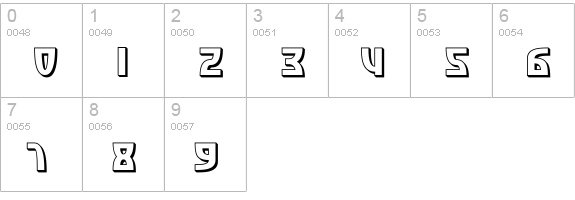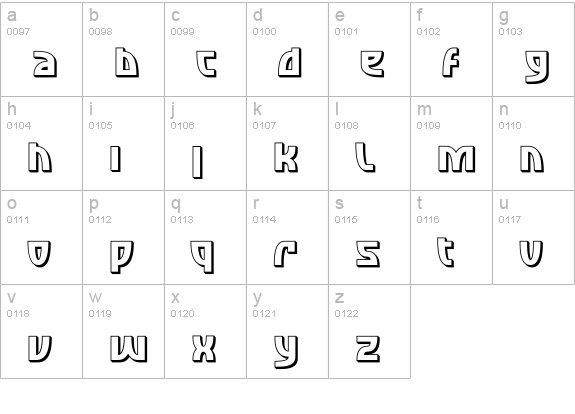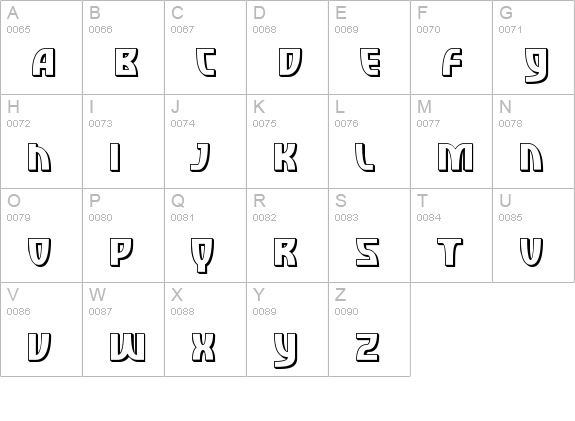
SF Retroesque Shaded Font Details
SF Retroesque Shaded font is a stunning typeface that effortlessly combines the charm of retro aesthetics with a modern twist. With its bold and distinctive letterforms, this font is perfect for adding a touch of nostalgia and character to any design project. The retroesque design of this font brings to mind the golden age of vintage signage and magazine covers, evoking a sense of nostalgia that is both captivating and timeless. Its shaded style adds depth and dimension to each letter, creating an eye-catching and dynamic visual impact. Whether you're working on a poster, logo, album cover, or any other creative endeavor, SF Retroesque Shaded font will surely make a statement. Its versatility allows it to be used in various contexts, from playful and whimsical designs to sophisticated and elegant compositions. The best part? SF Retroesque Shaded font is available for free! You can easily download it from FontsMarket.com, a trusted source for high-quality fonts. By offering this font for free, the creators have made it accessible to all designers, regardless of their budget. So, don't miss out on the opportunity to add SF Retroesque Shaded font to your font library. With its retro charm, modern twist, and the convenience of being freely available, this font is a must-have for any designer looking to create captivating and memorable designs.